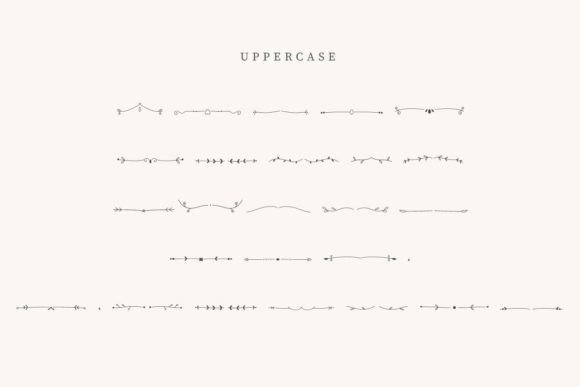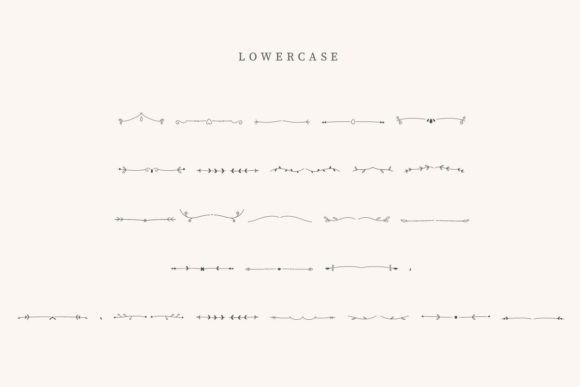
The Easter Divider Font: A Creative Game-Changer for Designers and Crafters
I’ll never forget the time I was working on a wedding invitation project, and my client asked for a unique divider to separate the different sections. I scoured the internet for the perfect font, but nothing seemed quite right. That’s when I stumbled upon the Easter Divider font, and it was love at first sight! 💕
This divider dingbat font has been a game-changer for my creative projects, and I’m excited to share its awesomeness with you. Whether you’re a designer, crafter, or creative hobbyist, Easter Divider is perfect for adding a touch of elegance and whimsy to your work.
- ✨ Unique and creative divider designs that add a touch of personality to any project
- ✅ Easy to use and navigate, even for those who are new to working with dingbat fonts
- 🎨 Highly versatile and can be used for a wide range of projects, from wedding invitations to logos and t-shirts
While Easter Divider is an amazing font, there are a few things to keep in mind:
- 🤔 Some of the divider designs can be a bit intricate, so they may not work well at very small sizes
- ⚠️ The font doesn’t come with a built-in bold or italic style, so you may need to get creative with layering or combining glyphs
The Designer Inspiration Behind Easter Divider
Easter Divider was designed with one goal in mind: to create a unique and creative way to add dividers to your projects. The designer wanted to create a font that was both elegant and playful, with a touch of whimsy and personality. And that’s exactly what they achieved!
Q: What is Easter Divider?
A: Easter Divider is a divider dingbat font designed for creative projects like wedding invitations, stickers, logos, t-shirts, posters, and more!
Q: Is Easter Divider easy to use?
A: Absolutely! Easter Divider is designed to be easy to use, even for those who are new to working with dingbat fonts.